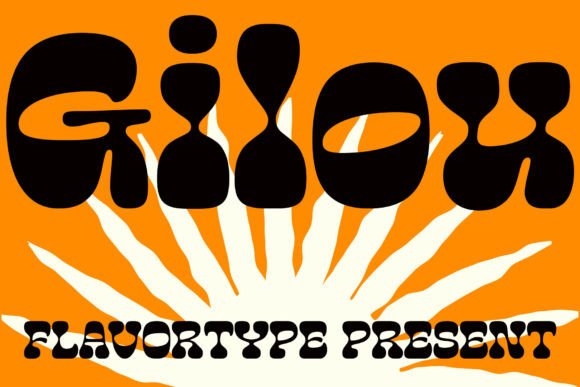
Gilou Font: A Vibrant Expression of Retro Charm and Sunshine
Soaked in sunshine and splashed with retro charm, Gilou brings bold personality and bubbly vibes to every design. Inspired by β€˜70s psychedelia and beachy daydreams, this font is all about wavy forms, chunky curves, and a whole lotta soul. It’s a full-on sunshine trip β€” perfect for ice cream brands, fizzy drinks, music posters, and anything that craves a touch of trippy nostalgia.
The Inspiration Behind Gilou
Gilou Font is a creative expression of the carefree and playful vibes of the 1970s. The font’s design is influenced by the era’s psychedelic art, which often featured wavy lines, bright colors, and bold patterns. The result is a font that embodies the spirit of a beachy daydream, with a dash of retro charm and a whole lot of personality.
Gilou Font boasts a range of distinctive design characteristics that make it perfect for adding a touch of retro flair to any design project. Some of its key features include:
• Wavy forms: Gilou’s letters are designed with wavy, flowing lines that evoke the feeling of a carefree summer day.
• Chunky curves: The font’s bold, chunky curves add a playful touch to any design, making it perfect for headlines and titles.
• Bold personality: Gilou Font has a bold, attention-grabbing personality that’s sure to make your design stand out.
Gilou Font is perfect for a wide range of creative projects, including:
• Ice cream brands: Add a touch of fun and playfulness to your ice cream brand with Gilou’s bold, bubbly vibes.
• Fizzy drinks: Give your fizzy drink brand a retro makeover with Gilou’s wavy forms and chunky curves.
• Music posters: Create eye-catching music posters with Gilou’s bold, attention-grabbing personality.
• Anything that craves a touch of trippy nostalgia: Whether you’re designing a t-shirt, a poster, or a social media graphic, Gilou Font is the perfect choice for adding a touch of retro charm.
Why Designers and Crafters Love Gilou
Designers and crafters love Gilou Font for its unique blend of retro charm and bold personality. Here are just a few reasons why:
• Easy to read: Despite its bold, playful design, Gilou Font is easy to read, making it perfect for use in a wide range of design projects.
• Highly versatile: Gilou Font can be used in a variety of design contexts, from digital graphics to print materials.
• Instantly recognizable: Gilou’s distinctive design makes it instantly recognizable, adding a touch of personality to any design project.
Tips for Using Gilou Font
Here are a few tips for getting the most out of Gilou Font:
• Use it boldly: Gilou Font is designed to make a statement, so don’t be afraid to use it boldly in your design projects.
• Experiment with colors: Gilou Font looks great in a range of bright, bold colors, so don’t be afraid to experiment and find the perfect hue for your design.
• Pair it with contrasting fonts: For maximum impact, pair Gilou Font with contrasting fonts that add a touch of elegance and sophistication.
In conclusion, Gilou Font is a vibrant expression of retro charm and sunshine that’s perfect for designers and crafters looking to add a touch of personality to their design projects. With its wavy forms, chunky curves, and bold personality, Gilou Font is sure to make a statement in any design context. So why not give it a try and see how it can add a touch of trippy nostalgia to your next design project?